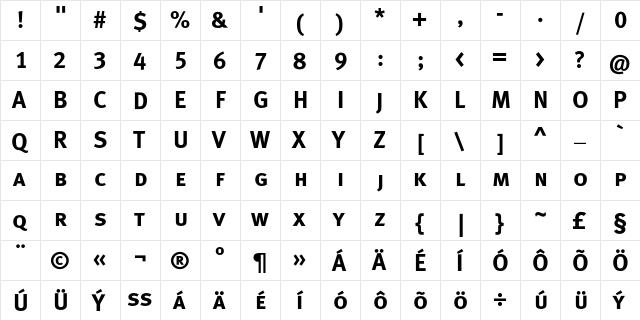
MetaBoldCELF Caps
Design Context for MetaBoldCELF Typeface
MetaBoldCELF takes a measured approach to typography — its balanced proportions and neutral character make it a reliable workhorse for both digital and print work. Its bold stroke weight gives it real presence on the page.